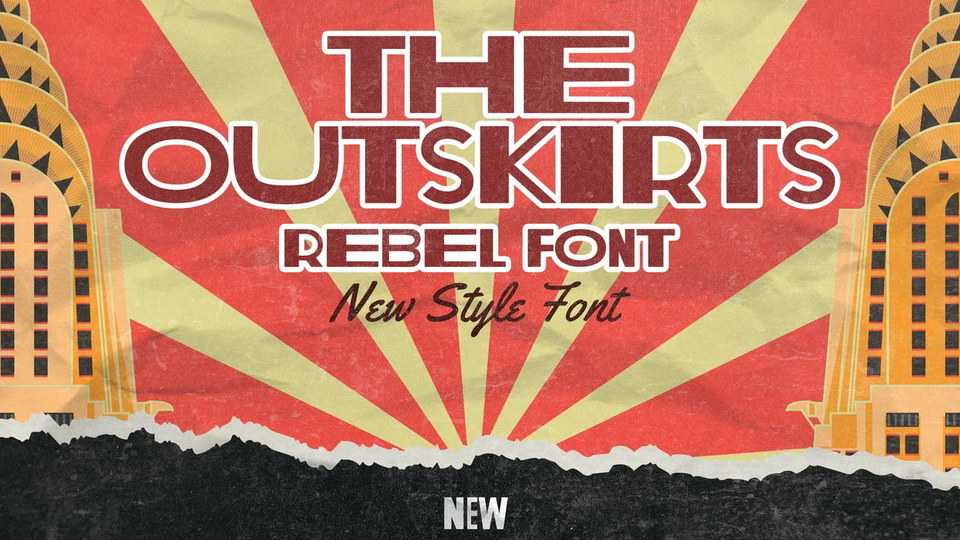
Download The Outskirts font, a classic vintage rebel typeface. The variable wide of the letters on the uppercase will give you a blast of rebel feel in it.